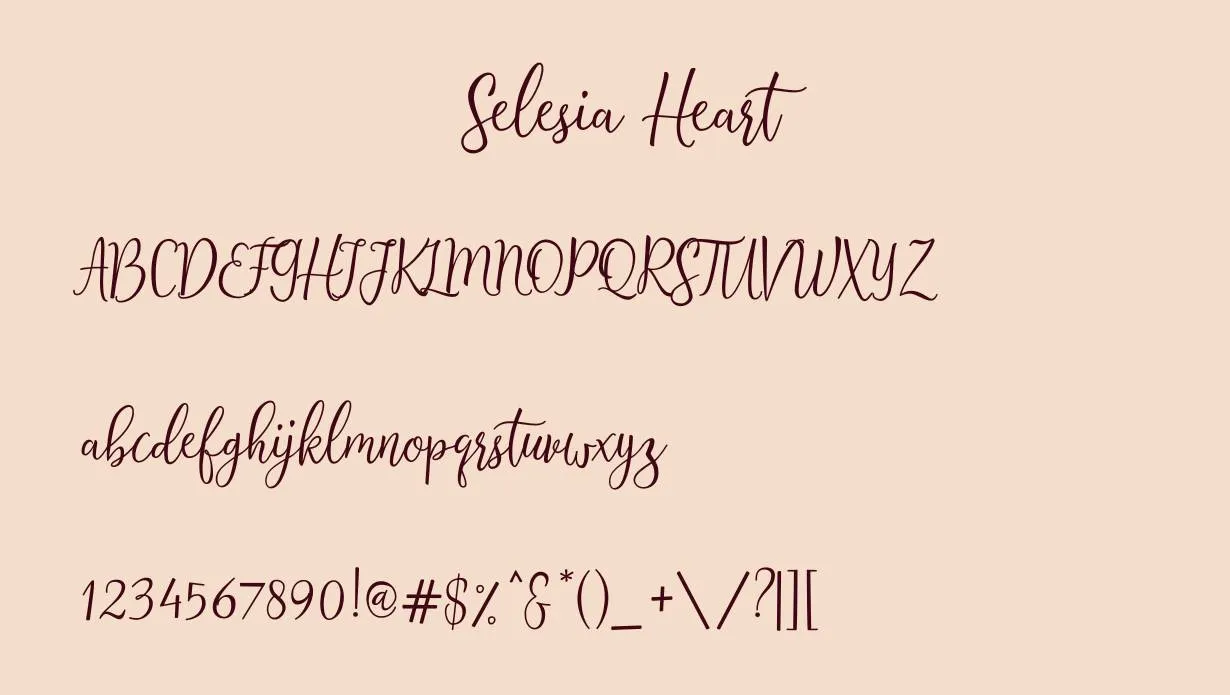
Selesia Heart Font Free Download
Now, let’s dive into the sweet and charming world of Selesia Heart, a delightful creation by an unspecified designer. Belonging to the category of decorative and script fonts, Selesia Heart is perfect for projects that require a touch of romantic whimsy.
The font’s gentle curves and intricate details make it an ideal choice for wedding invitations, love-themed illustrations, or any design that aims to convey a sense of warmth and affection.